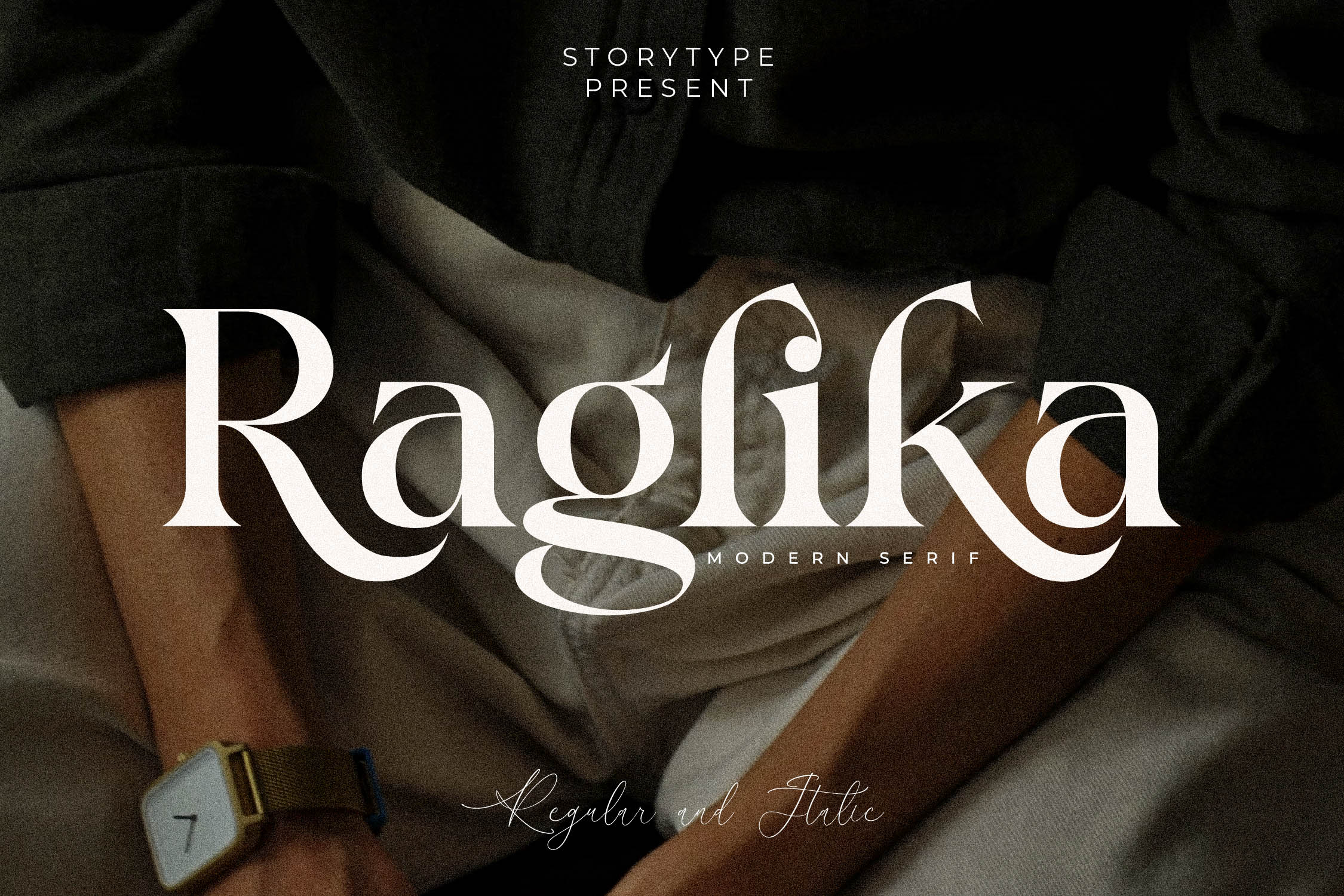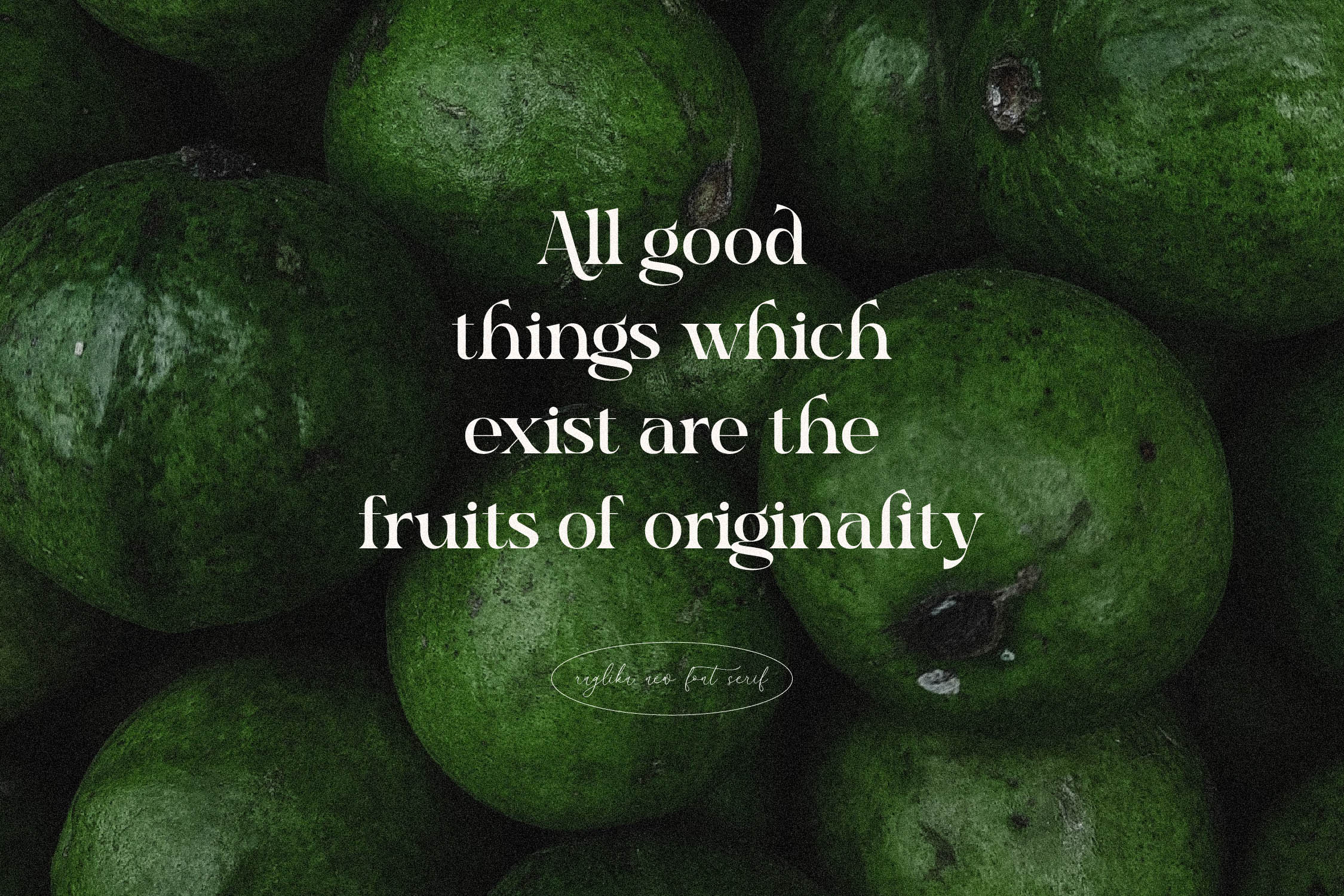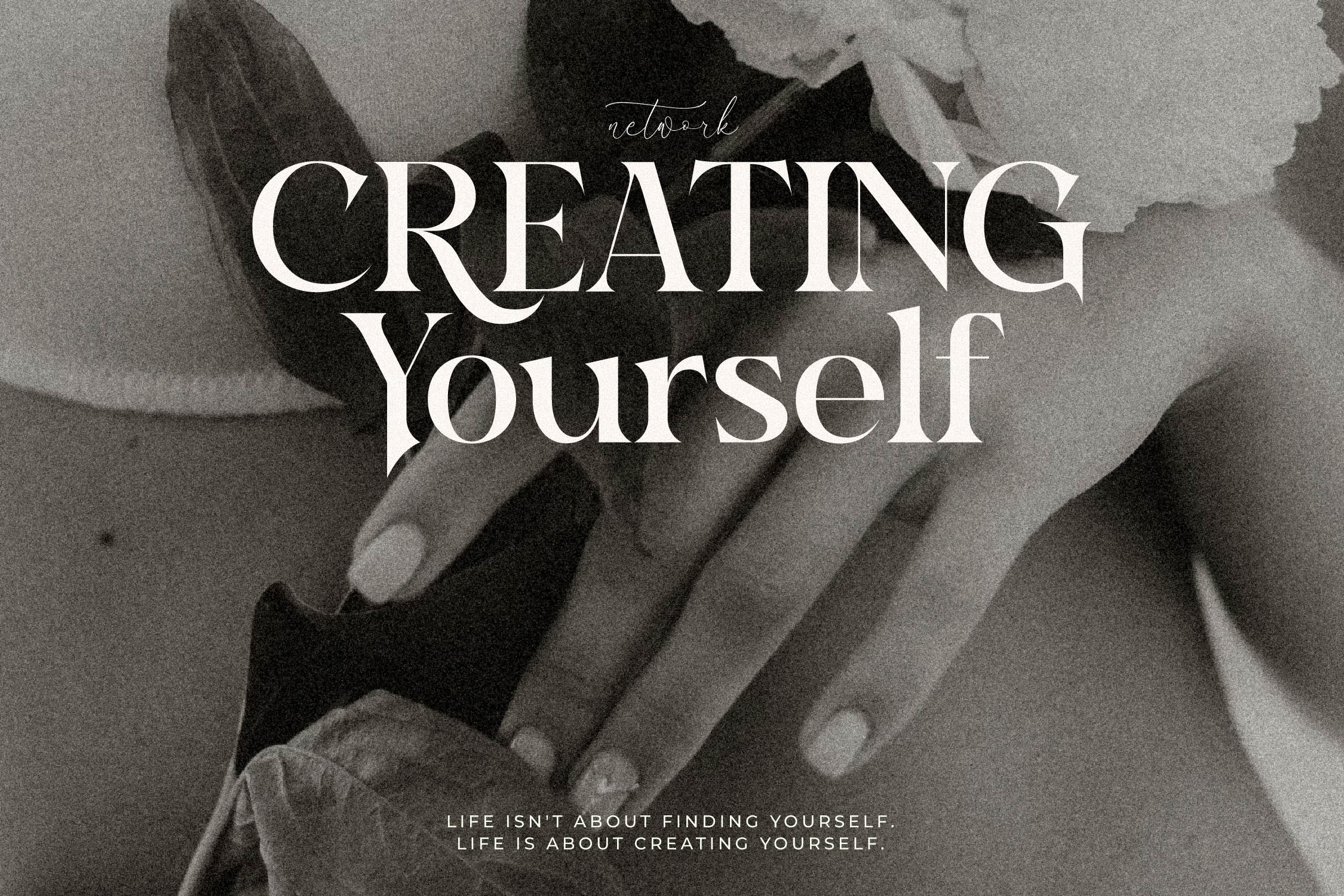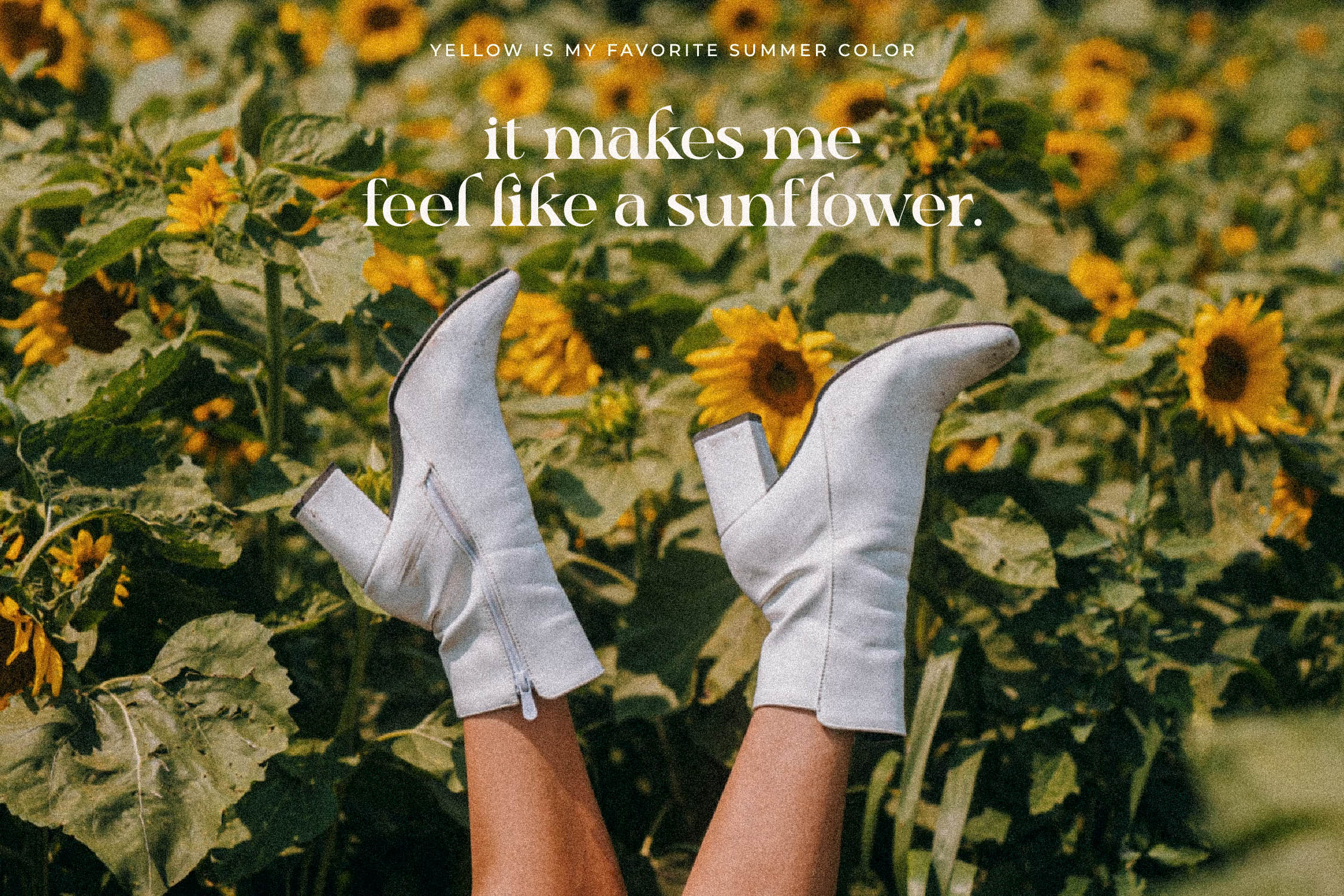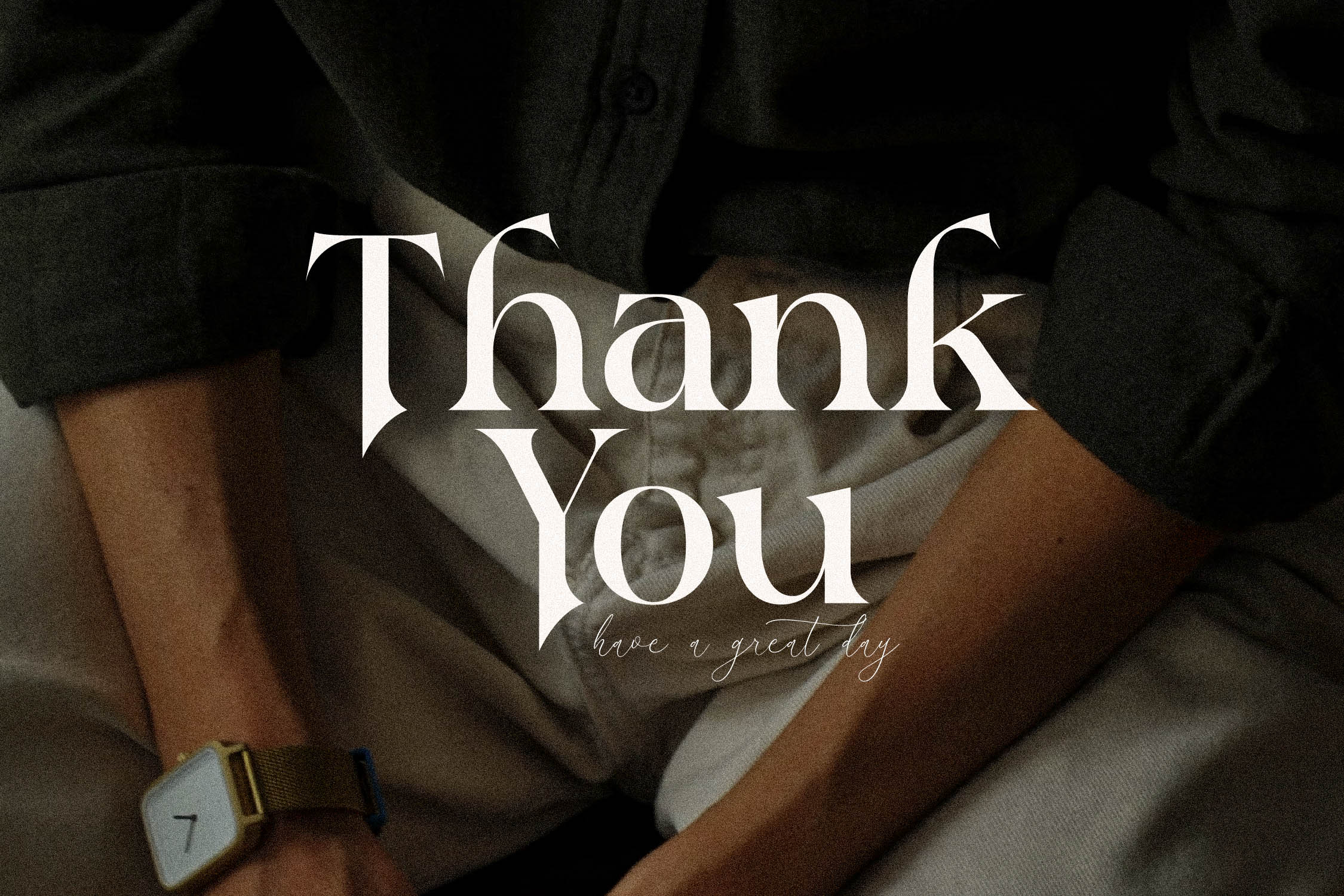
Raglika Font
Raglika Serif Font is a modern and classic serif font with a unique style and fancy look. This typeface is perfect for an elegant & luxury logo, book or movie title design, fashion brand, magazine, clothes, lettering, quotes, and so much more. This font is PUA encoded, which means you can access all of the glyphs and swashes with ease!